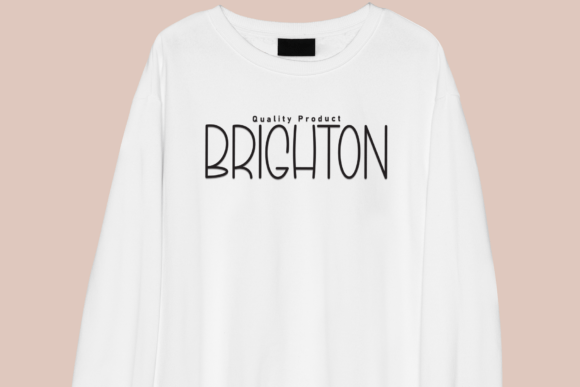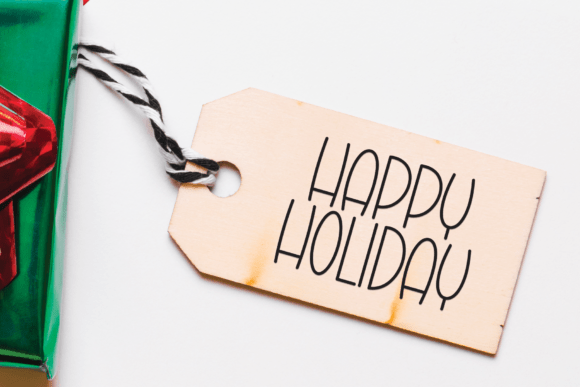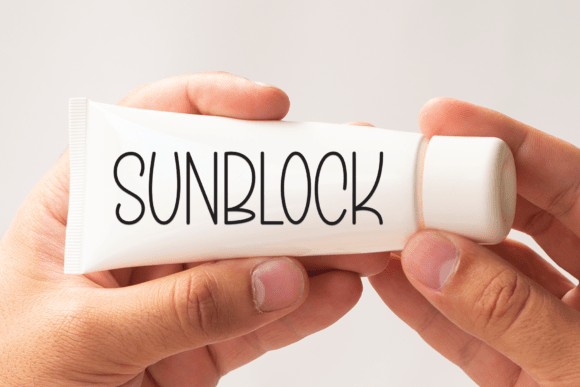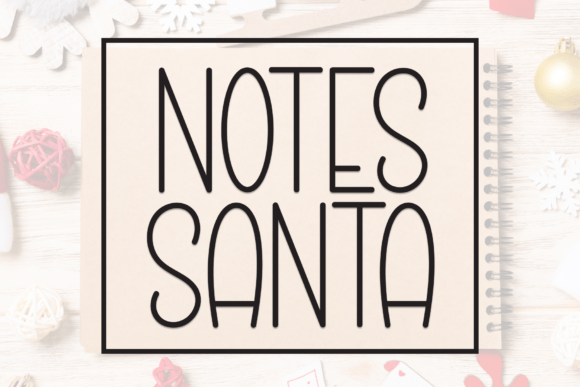
Introduction to Notes Santa Font
Introduce your designs to the warmth of a handwritten display font, thoughtfully crafted with a friendly and appealing character.
Our unique font radiates a delightful aura, making it an unrivalled selection for creating charming wedding invitations or heartfelt cards With a frisky flare and a sprinkle of functional versatility, this font promises to enrich your design pieces by adding an irresistible, endearing twist.